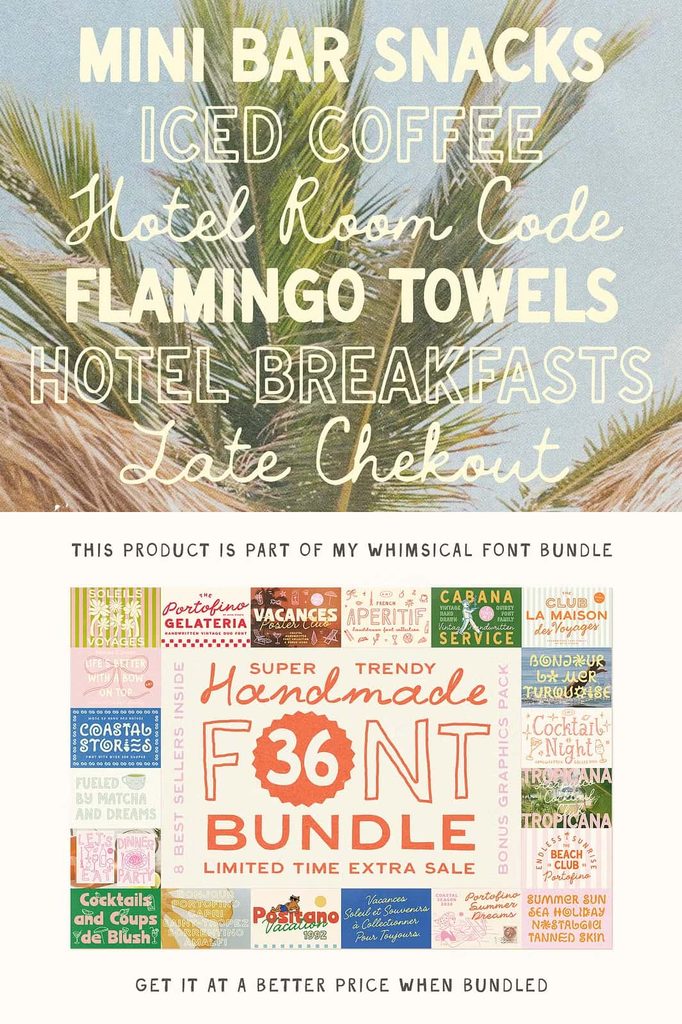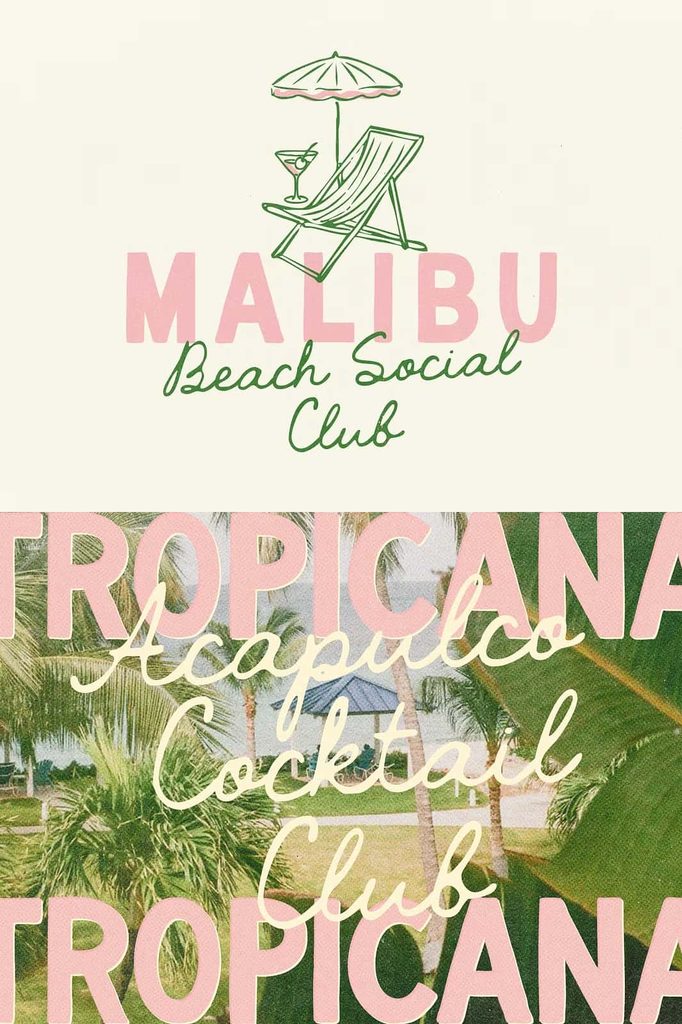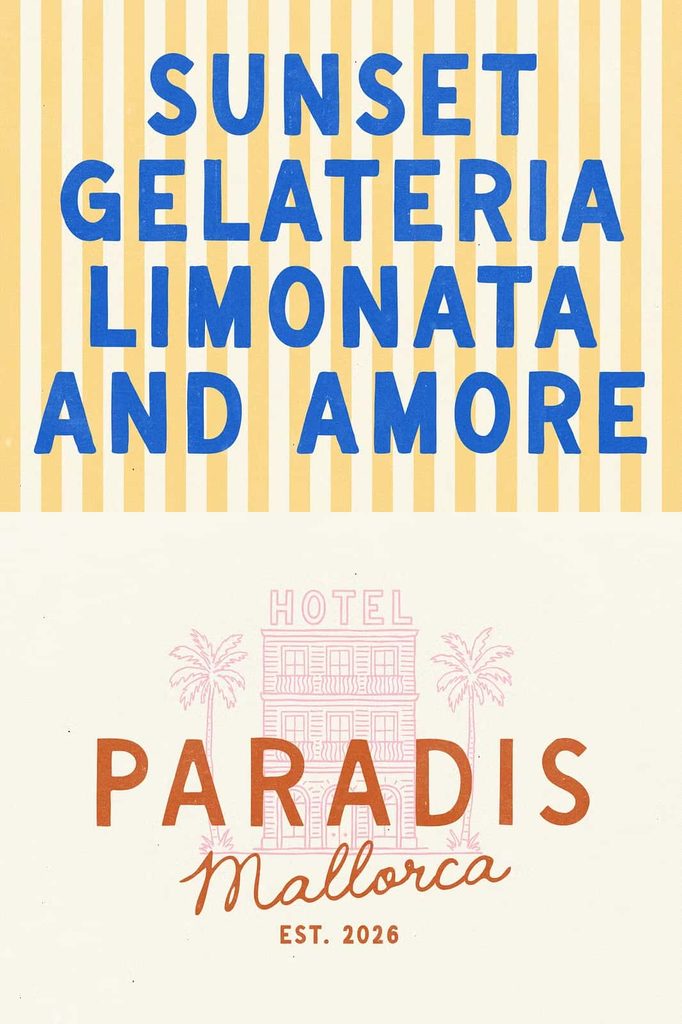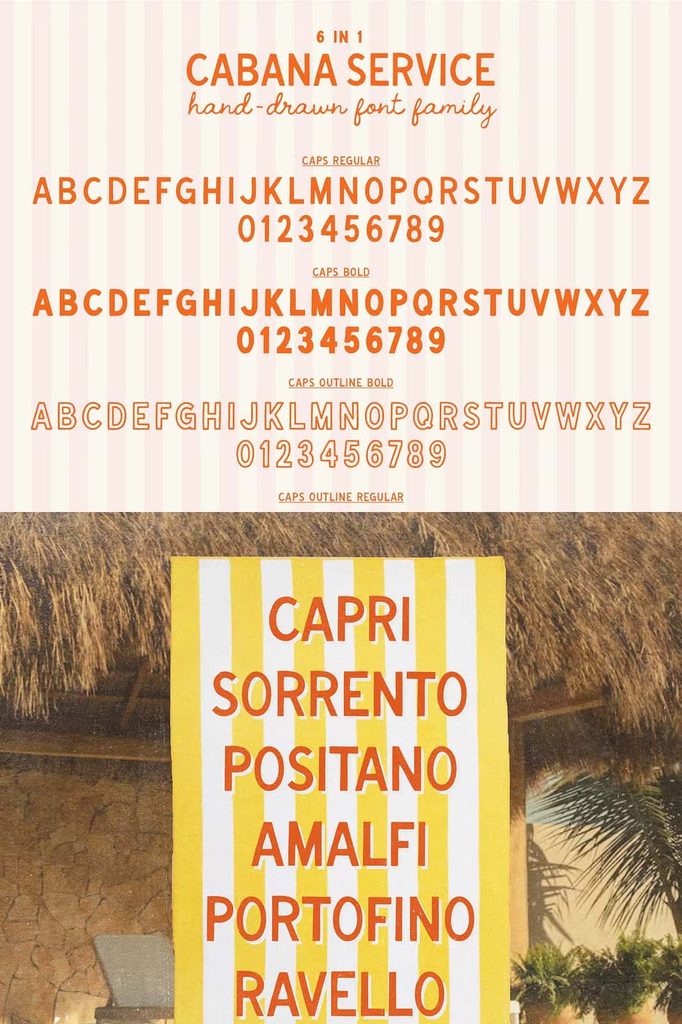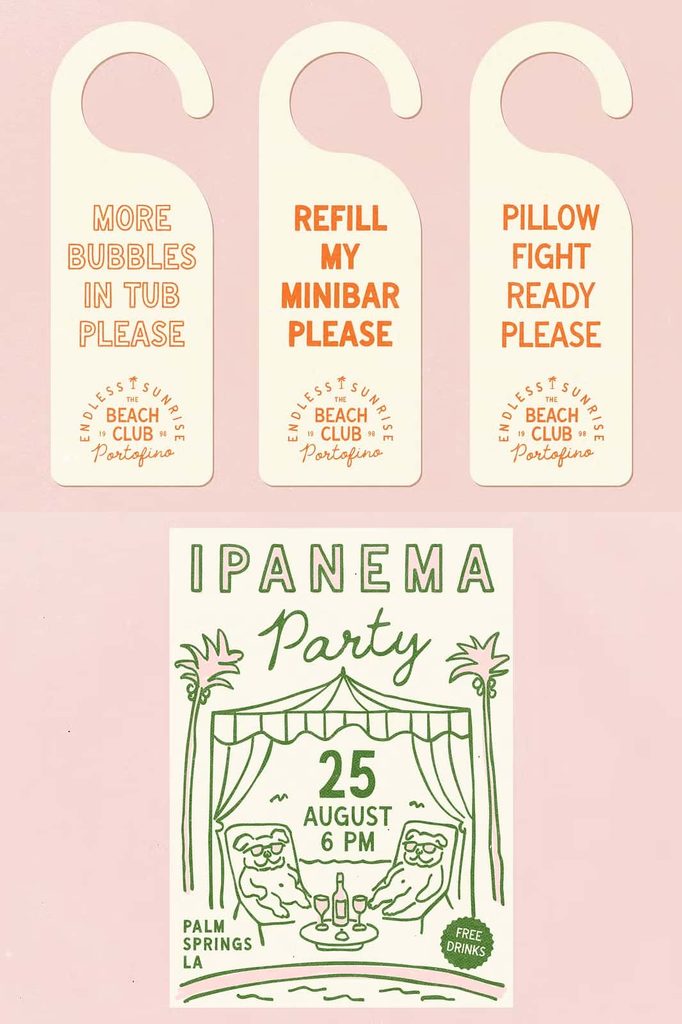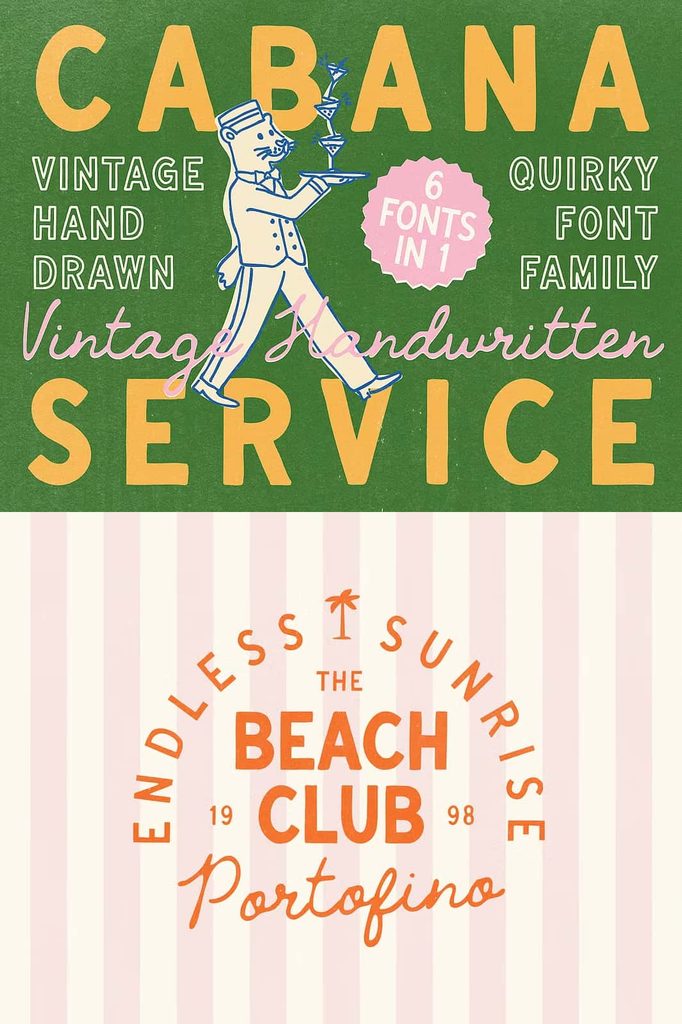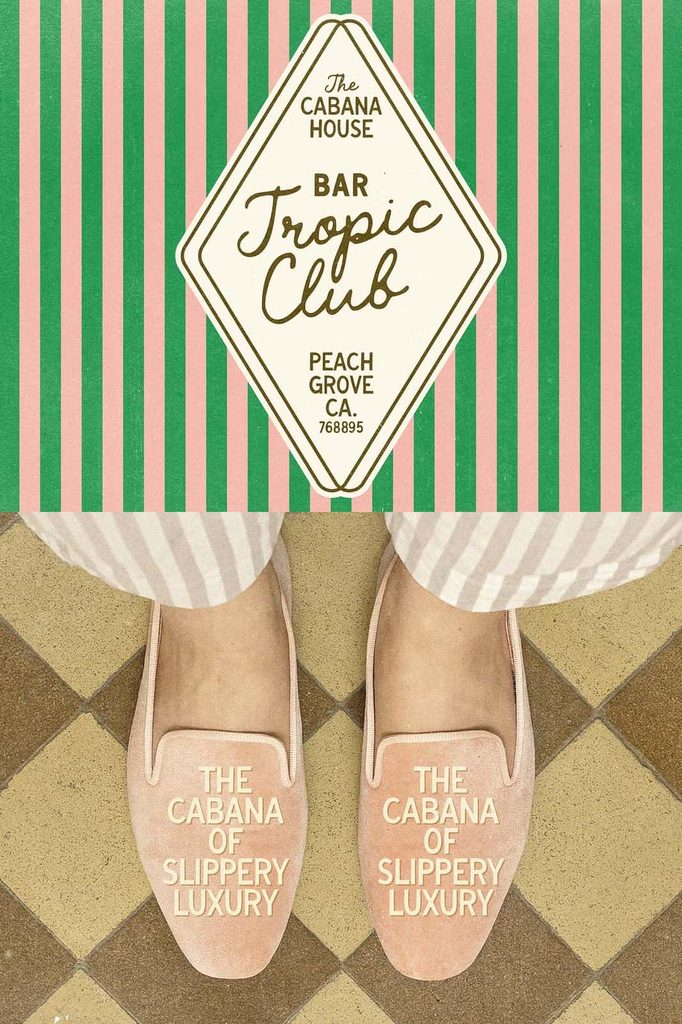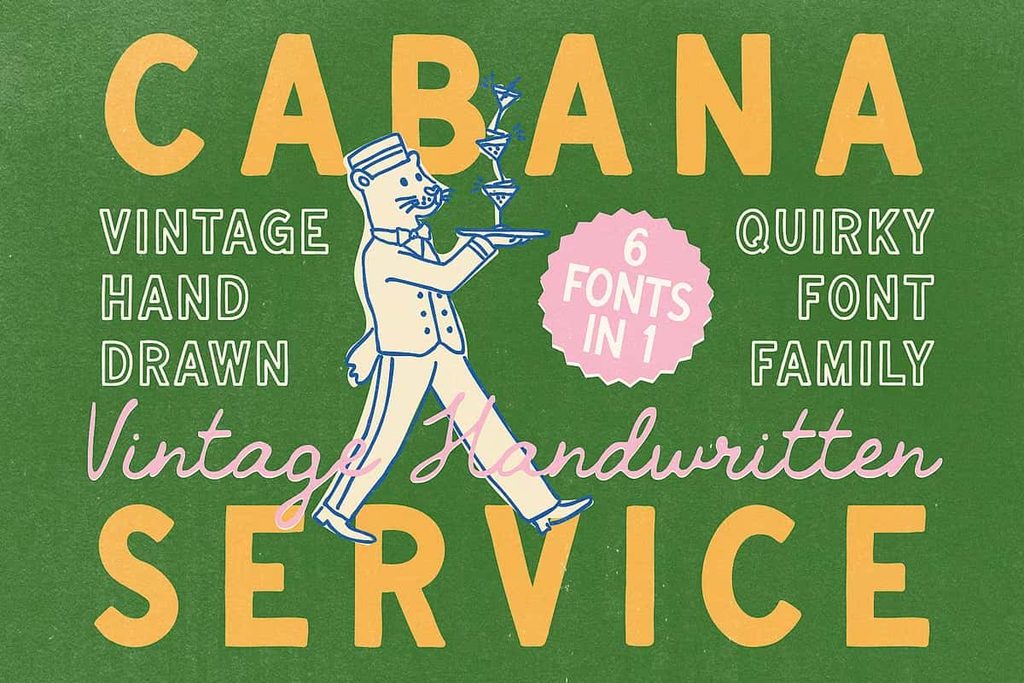
Handwritten Resort Vintage Font Pack
Cabana Service Font
Cabana Service is a relaxed hand-drawn font family that brings warmth, personality, and effortless charm to creative designs. Its soft and imperfect letterforms create a natural appearance that feels personal rather than overly polished. Inspired by the atmosphere of a quiet morning at a beach hotel, the typeface captures the easygoing spirit of warm destinations, nostalgic summer days, and leisurely moments.
With its playful yet confident character, Cabana Service works beautifully when you want typography to feel approachable, stylish, and relaxed. The font avoids an overly formal appearance and instead creates a handmade quality that can give your designs a more authentic visual identity.
Cabana Service Font Features
Cabana Service combines hand-drawn details with a soft, imperfect aesthetic. The irregularities in its letterforms give the typeface a crafted appearance, helping it feel more organic and expressive than a perfectly geometric font. This quality makes it particularly useful for designers who want to create a friendly and distinctive visual atmosphere.
The font family also balances playfulness with sophistication. Rather than creating an overly childish appearance, Cabana Service delivers a relaxed confidence that can complement both casual and stylish design concepts. Its personality allows you to create typography that feels warm without sacrificing visual appeal.
Hand-Drawn Letterforms
The hand-drawn construction gives Cabana Service its authentic personality. Slight variations in the characters create a natural rhythm that resembles lettering created by hand. This quality can help your designs feel more personal, creative, and approachable.
Soft and Imperfect Style
Cabana Service embraces imperfection as part of its visual character. Its soft shapes and subtle irregularities create a comfortable, relaxed appearance. Instead of demanding precision, the typeface celebrates the charm of handmade lettering and gives your designs an effortless quality.
A Relaxed Beach-Inspired Aesthetic
Cabana Service draws inspiration from the atmosphere of a slow morning at a beach hotel. Its visual personality suggests warm sunlight, quiet surroundings, casual hospitality, and relaxed summer living. This inspiration makes the font a strong choice for projects that need a vacation-inspired or resort-style atmosphere.
The typeface can evoke destinations such as Palm Springs or the Amalfi Coast without relying on excessive decorative elements. Its relaxed character allows designers to create a sense of warmth and escapism through typography alone. Pair it with natural textures, photography, muted layouts, or coastal-inspired graphics to strengthen the overall aesthetic.
Perfect for Branding and Logos
Cabana Service can help businesses develop a memorable and approachable brand identity. Its handmade character gives logos a personal touch, while its relaxed confidence prevents the design from feeling generic. This combination makes the font particularly suitable for hospitality, lifestyle, travel, fashion, food, and creative brands.
Use Cabana Service for wordmarks, logo concepts, packaging, signage, and supporting brand materials. Its distinctive letterforms can help a brand establish a recognizable personality and communicate a sense of warmth from the first visual impression.
Cabana Service for Hospitality and Travel Designs
The font naturally complements hospitality and travel projects because its personality reflects the relaxed atmosphere associated with hotels, resorts, cafés, and holiday destinations. Designers can use it for hotel branding, room amenities, menus, welcome signs, promotional materials, brochures, and travel-related graphics.
Cabana Service can also work well for vacation rental branding and destination marketing. Its hand-drawn appearance creates an inviting quality that can make promotional materials feel less corporate and more personal. Combine the font with photography and simple layouts to communicate an authentic sense of place.
Creative Uses for Cabana Service Font
Cabana Service offers plenty of opportunities for creative experimentation. Its playful and nostalgic personality makes it useful across both digital and printed designs. You can use the typeface for projects that require warmth, individuality, and an easygoing visual style.
• Beach hotel and resort branding
• Travel logos and destination graphics
• Restaurant and café branding
• Summer event invitations
• Vacation rental designs
• Product packaging and labels
• Apparel and merchandise graphics
• Posters and promotional artwork
• Social media graphics
• Greeting cards and stationery
• Editorial headlines
• Website headings and digital content
• Beach-themed illustrations
• Lifestyle and fashion branding
Cabana Service for Packaging Design
Packaging designers can use Cabana Service to give products a warm and handcrafted personality. The imperfect letterforms work especially well for products associated with travel, summer, hospitality, food, beverages, fashion, and lifestyle.
Use the typeface for product names, labels, short descriptions, packaging headlines, or decorative typography. Its relaxed appearance can make packaging feel approachable while helping the product establish a memorable visual identity.
Cabana Service for Social Media and Digital Content
Cabana Service can add personality to social media graphics, promotional campaigns, website headers, and digital advertisements. Its expressive letterforms can make short messages more engaging and help visual content stand apart from designs that rely entirely on standard digital fonts.
For social media projects, use Cabana Service for headlines, short quotes, campaign messages, product announcements, and seasonal graphics. Pair the typeface with clean supporting typography to create contrast and maintain a clear visual hierarchy.
Create a Nostalgic Visual Identity
The nostalgic quality of Cabana Service makes it useful for projects that reference earlier eras, classic vacation culture, or relaxed summer lifestyles. Its hand-drawn appearance can create the impression of vintage signage, personal notes, boutique branding, or resort-inspired lettering.
You can strengthen this effect by combining the font with retro-inspired photography, paper textures, simple illustrations, natural materials, and understated graphic layouts. These elements can complement the typeface without competing with its distinctive personality.
Why Choose Cabana Service Font?
Cabana Service provides an effective solution for designers who want typography with character and warmth. Its soft imperfections create an authentic handmade appearance, while its playful personality adds energy without becoming overwhelming. The font also carries a relaxed confidence that allows it to work across casual, nostalgic, and sophisticated design concepts.
Instead of using a generic typeface to communicate a laid-back atmosphere, you can use Cabana Service to build that mood directly into the typography. Its beach-hotel inspiration makes it particularly effective for hospitality, travel, lifestyle, fashion, and summer-themed projects.
Conclusion
Cabana Service is a charming hand-drawn font family designed to capture the relaxed spirit of warm destinations and quiet beach mornings. Its soft, imperfect letterforms create an authentic handmade appearance, while its playful and nostalgic personality gives creative projects a distinctive visual identity.
From hotel branding and travel graphics to packaging, apparel, social media content, invitations, and lifestyle projects, Cabana Service adapts to a wide range of creative applications. Its combination of casual warmth and relaxed sophistication makes it a strong choice for designers who want to create typography that feels personal, inviting, and effortlessly stylish.
Whether your project draws inspiration from Palm Springs, the Amalfi Coast, a favorite beach hotel, or simply the feeling of a slow summer morning, Cabana Service can help bring that atmosphere into your design through expressive and approachable lettering.